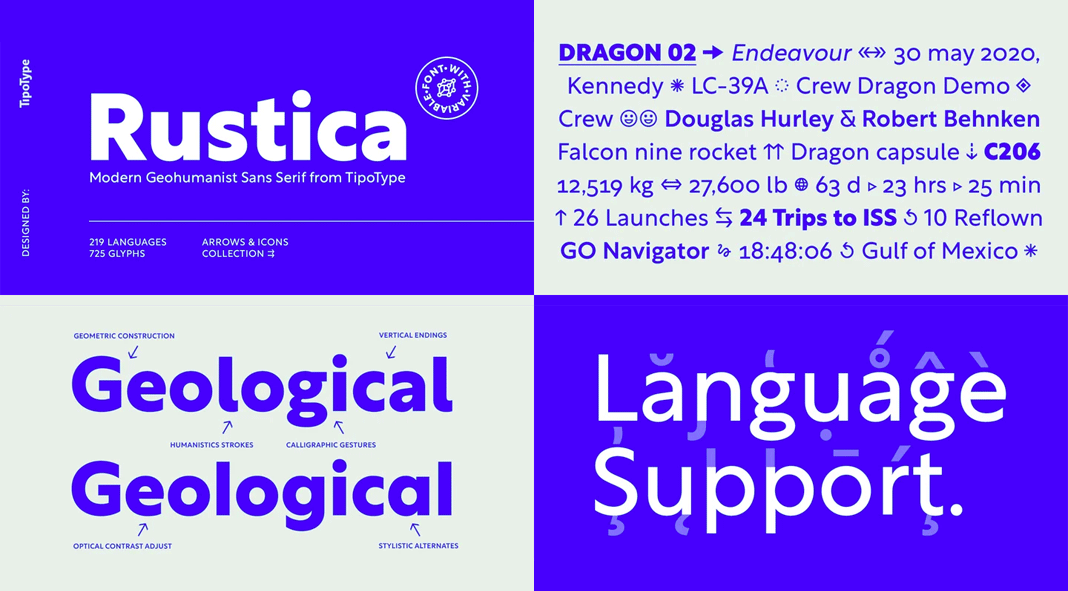
Rustica, a font family that draws back to the sans typeface tradition and updates it for the 21st century.
Designed and published by the TipoType team in 2021, Rustica is a new font family that combines tradition with contemporary standards as well as the latest typography trends. Equipped with 9 weights plus variable style and matching italics, this versatile family can be used for plenty of applications. Rustica’s typeface is rooted in humanist lettering with the addition of the determination and precision of the geometry of the classic sans of the early 20th century.